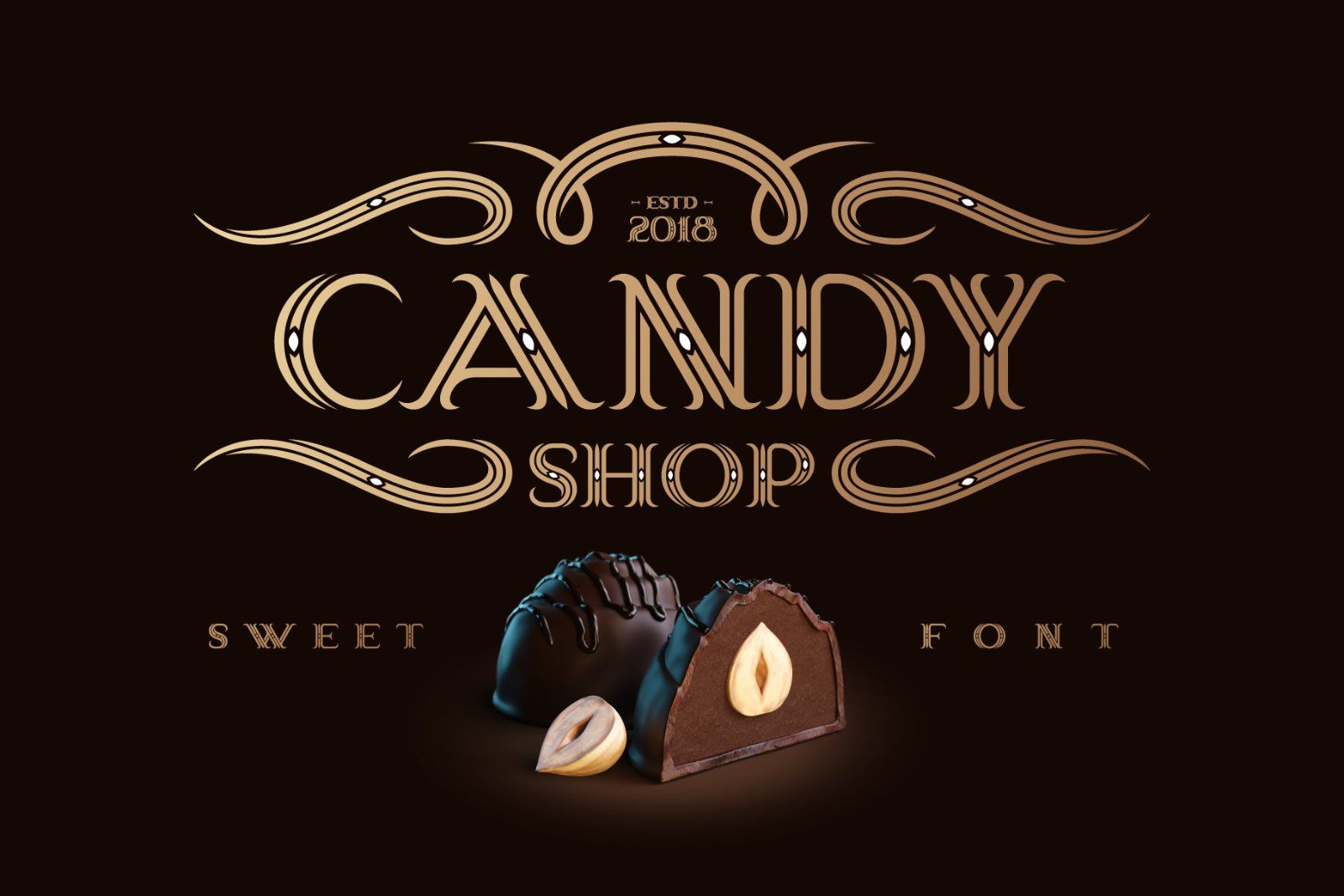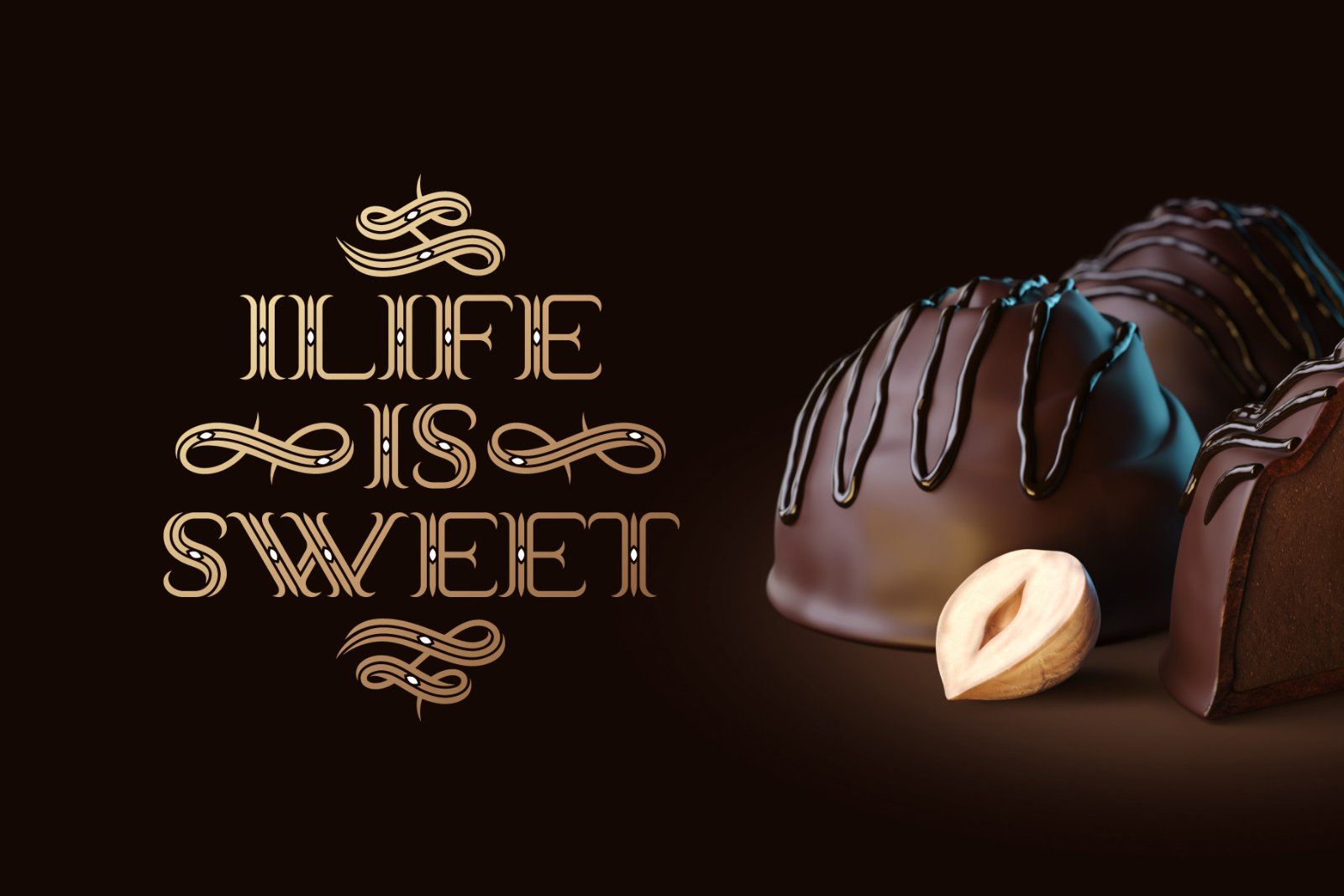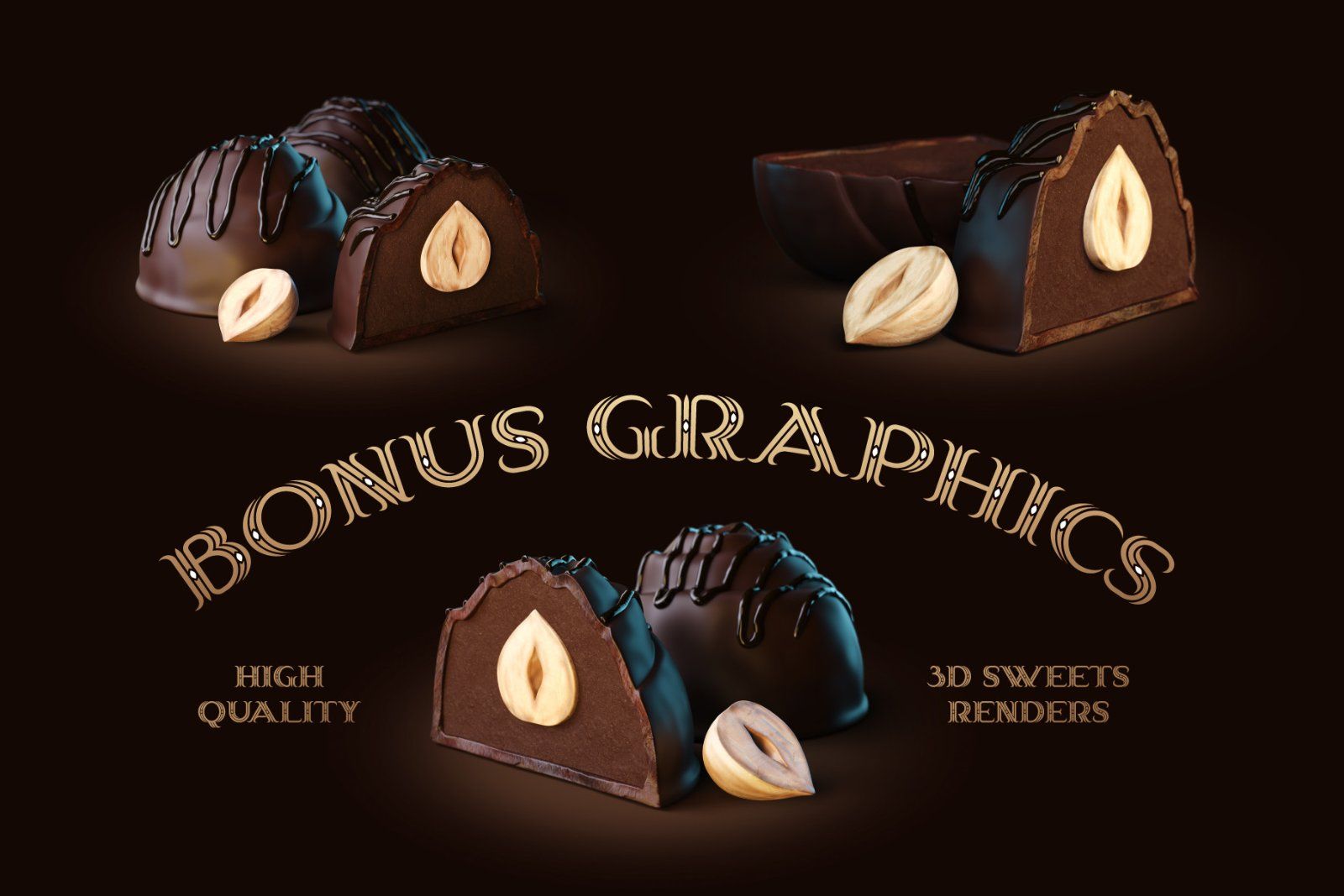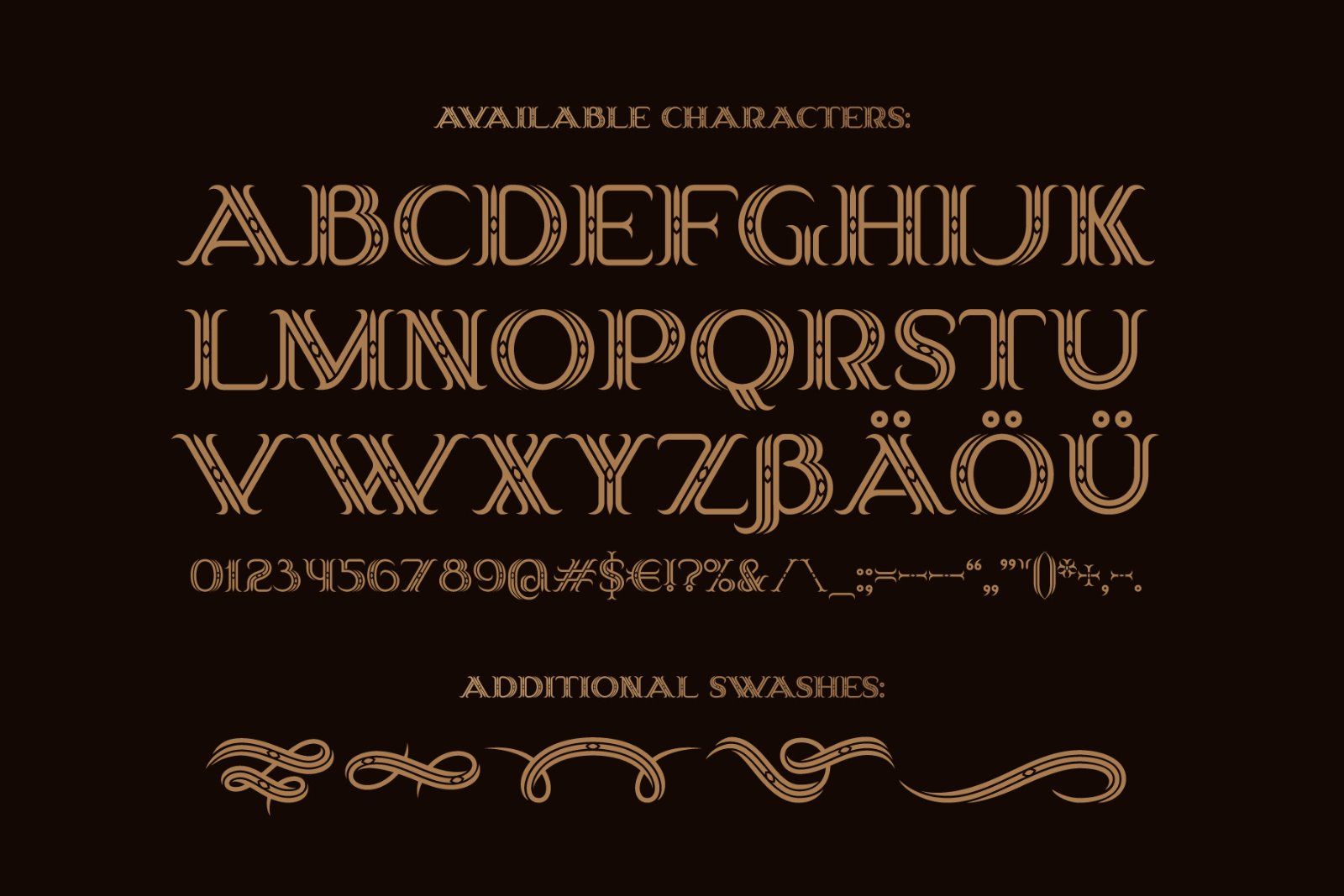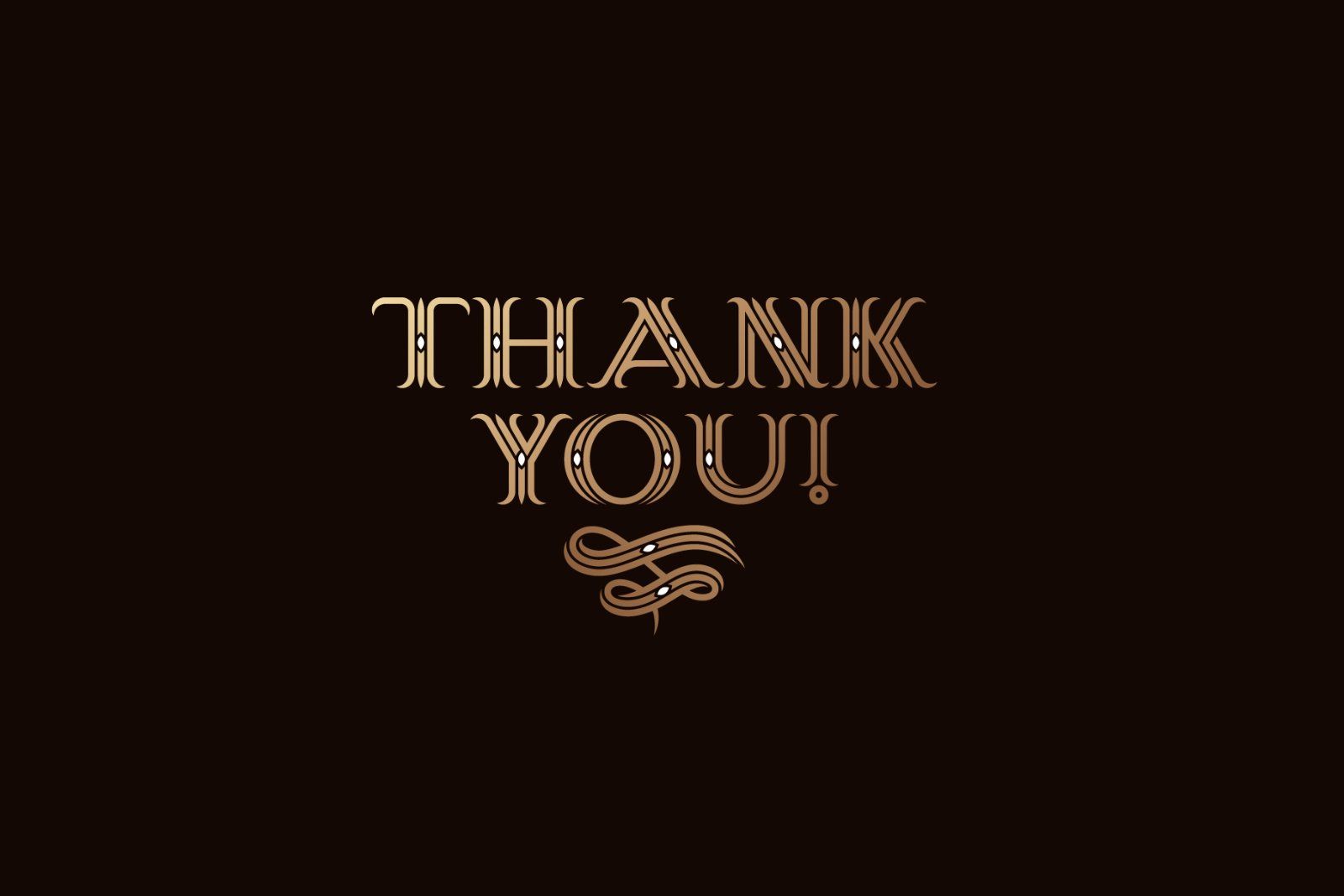
Hi! Introducing a vintage decorative font Candy Shop. It's a classic look elegant font, perfect for food packaging and label design. Additional swashes are available via "Glyphs panel". All available characters you can see on the 4th screenshot. Also with this font you will get a bonus high quality rendered chocolate candies (3rd screenshot) in PSD & JPG formats.